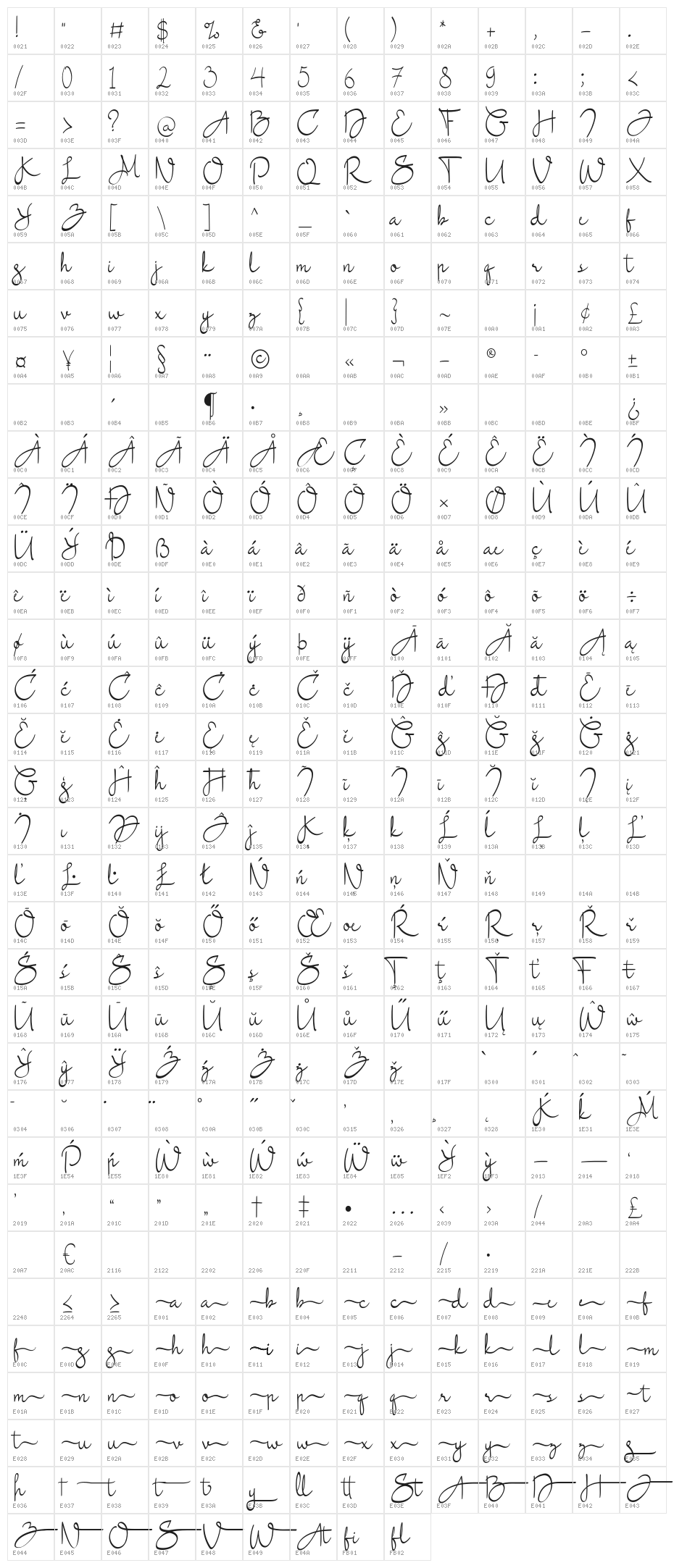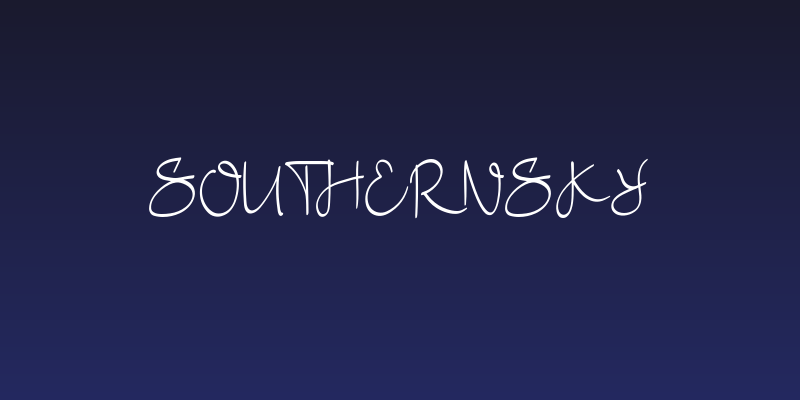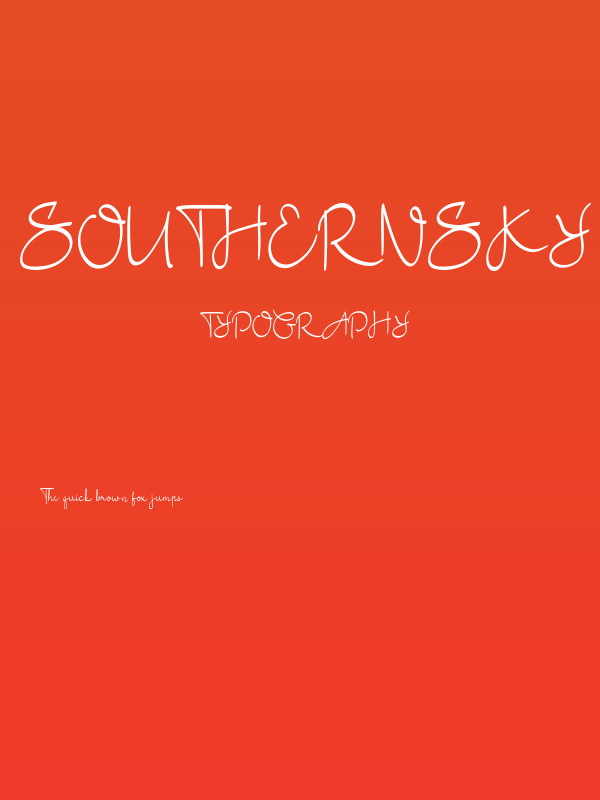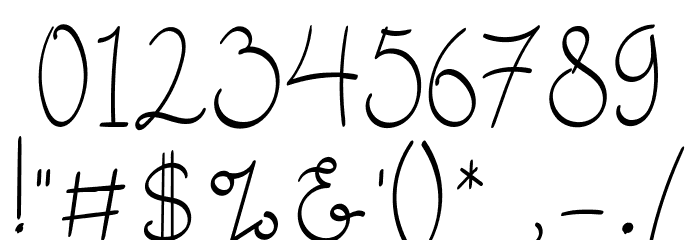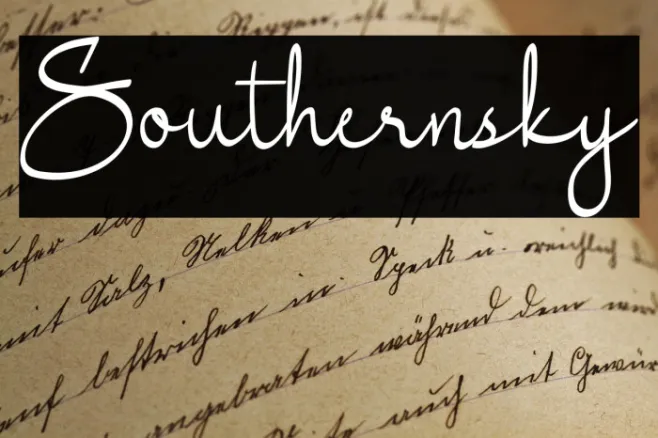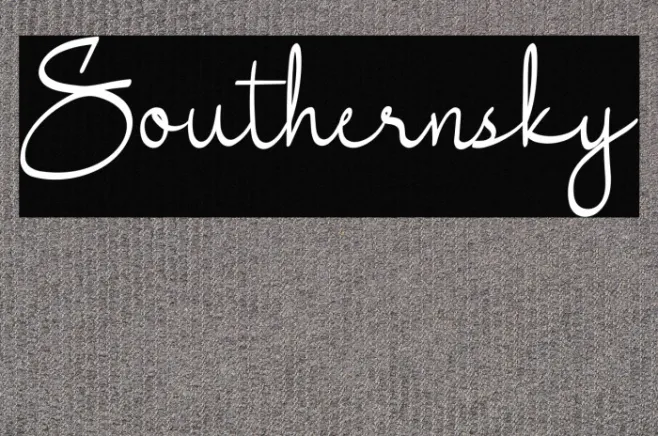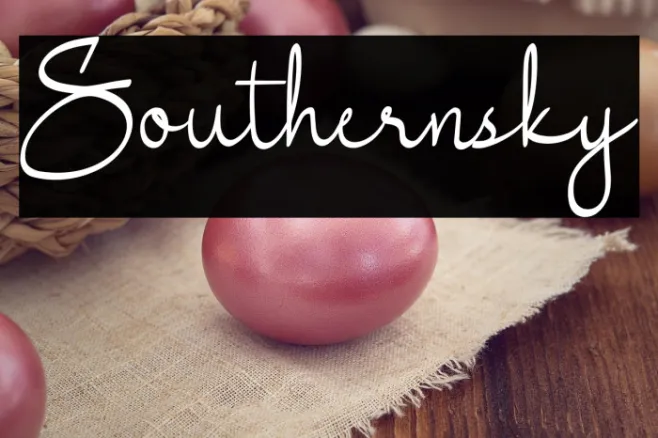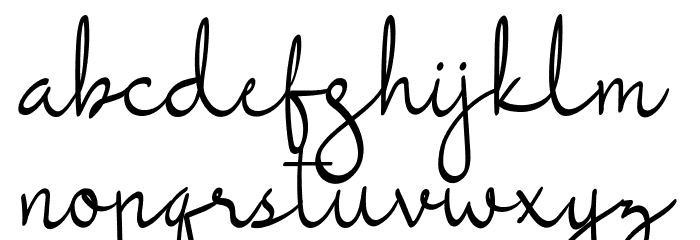
Southernsky Font
Southernsky Description
This font features an elegant and flowing script style, characterized by its smooth, cursive strokes and artistic flair. The uppercase letters exhibit a sophisticated looped design, while the lowercase letters maintain a consistent, fluid motion, enhancing readability. Numbers and special characters are crafted with the same attention to detail, ensuring a cohesive look across all text elements. The overall appearance is both graceful and dynamic, making it suitable for projects that require a touch of elegance and personality.